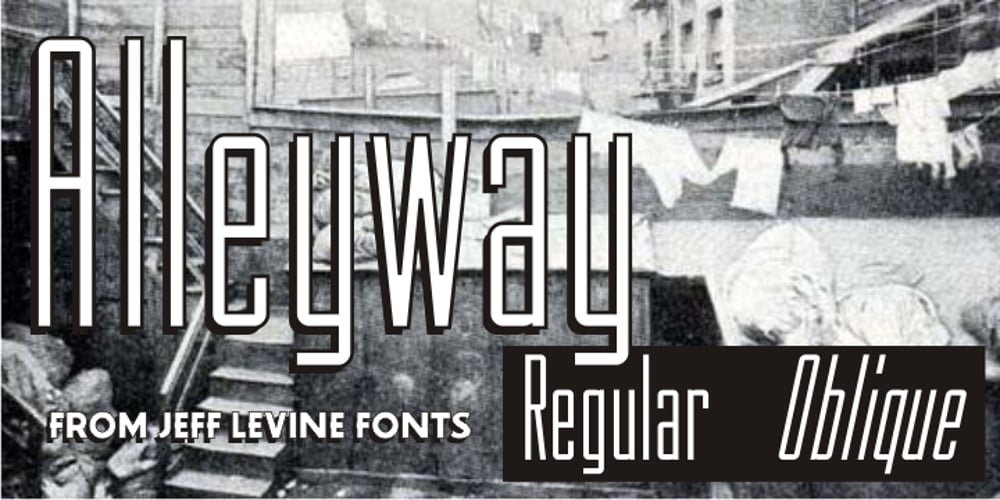
Alleyway JNL Font Family was designed by Jeff Levine and published by Jeff Levine. Alleyway JNL contains 2 styles and family package options. Alleyway JNL is an original typeface by Jeff Levine drawing heavily on Art Deco influences. It’s elegant, condensed design is perfect for anything from invitations to letterheads to ad copy.